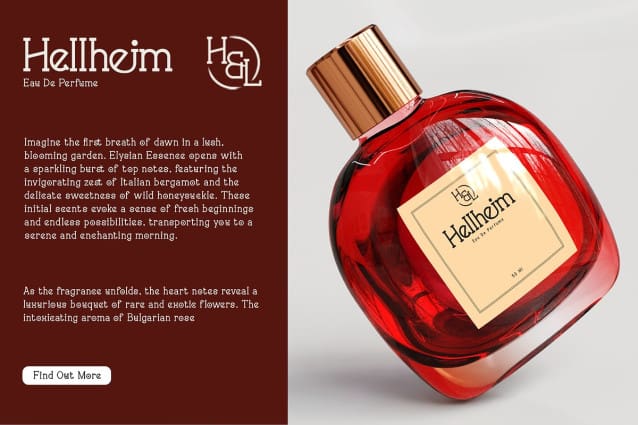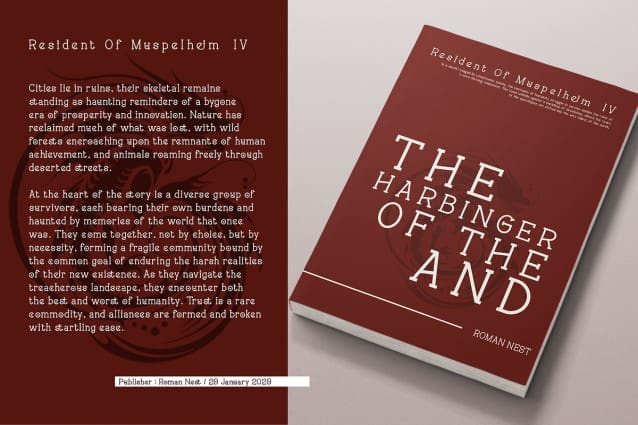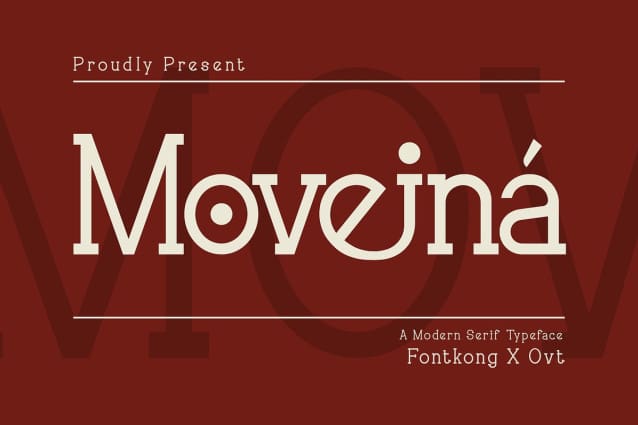
Moveina Font
Moveina Font is a sophisticated and modern serif typeface designed to bring elegance and clarity to your design projects. With its clean lines and graceful letterforms, Moveina is perfect for high-end branding, editorial layouts, stylish logos, and elegant print designs. This font seamlessly blends classic serif elements with contemporary design, ensuring your work stands out with timeless beauty and refinement.
Crafted with precision, Moveina features well-balanced characters that offer excellent readability and visual appeal. Its versatile design makes it ideal for both headlines and body text, providing a cohesive and polished look across all your visual communications. The font’s adaptability allows it to integrate seamlessly into various design contexts, from digital platforms to printed materials.
Elevate your design projects with Moveina Font, a font that embodies the perfect harmony of tradition and modernity. Its unique style and adaptability make it an essential addition to any designer’s toolkit for creating sleek and sophisticated visuals. Enhance your work with Moveina Font and experience the elegance of modern serif typography.